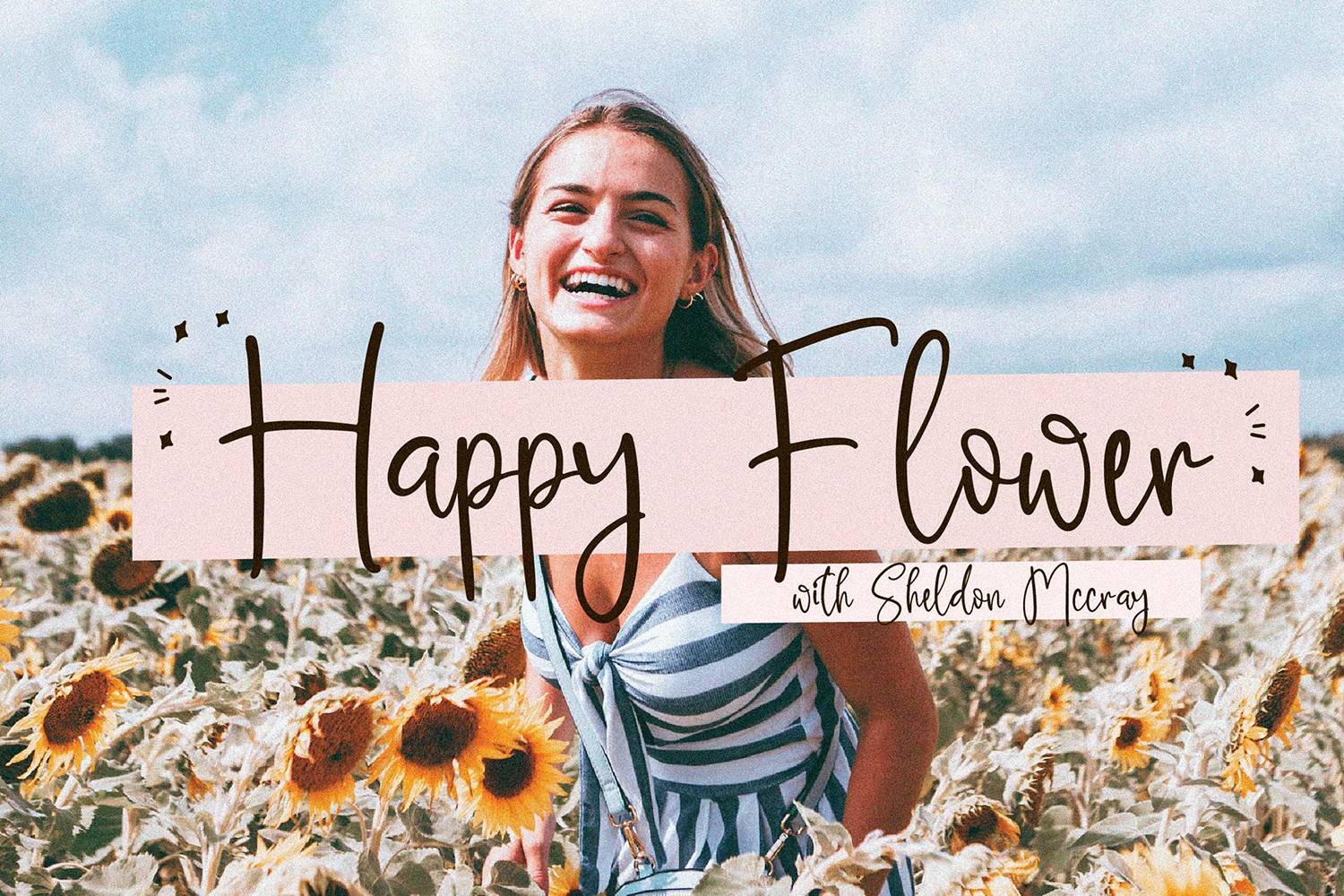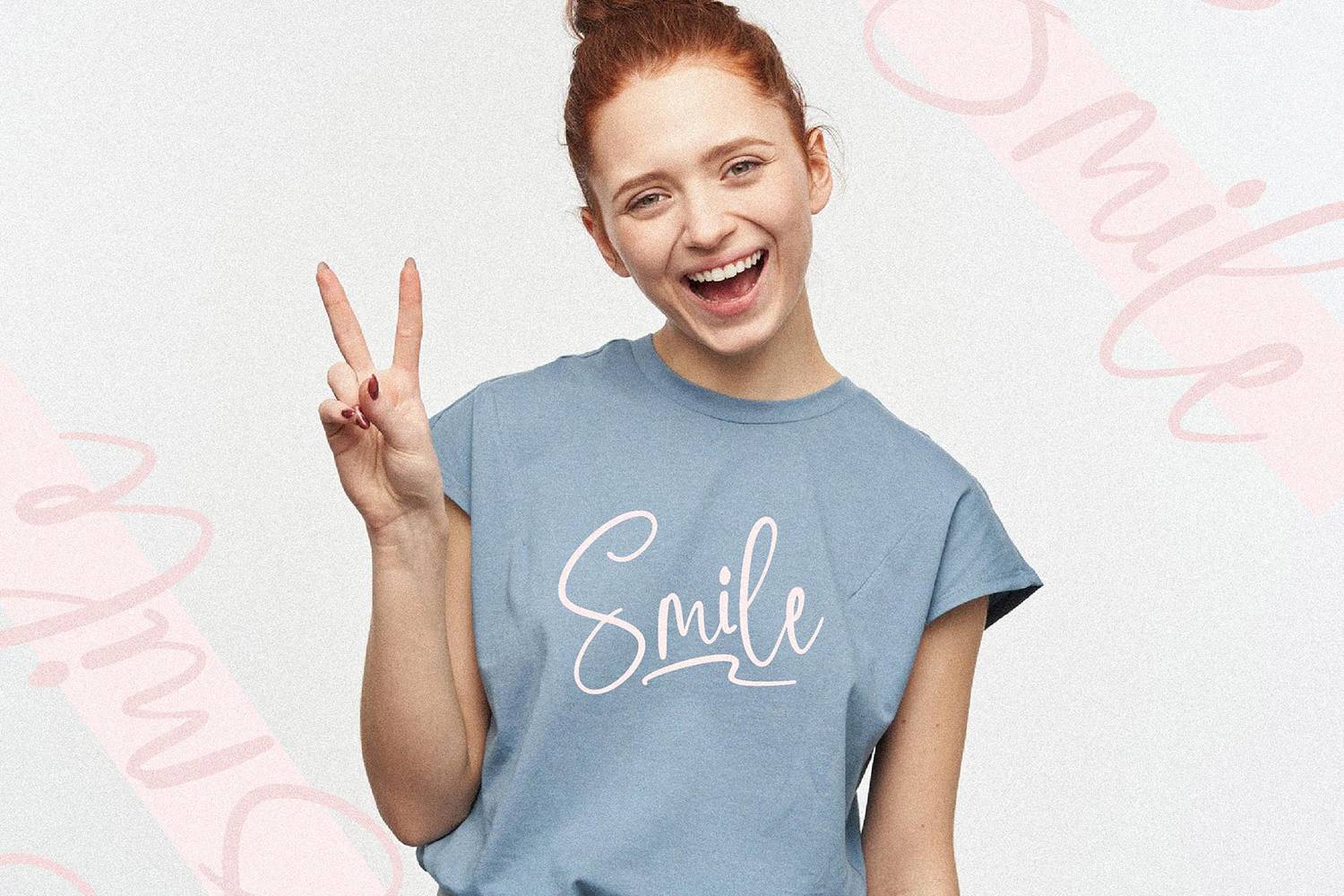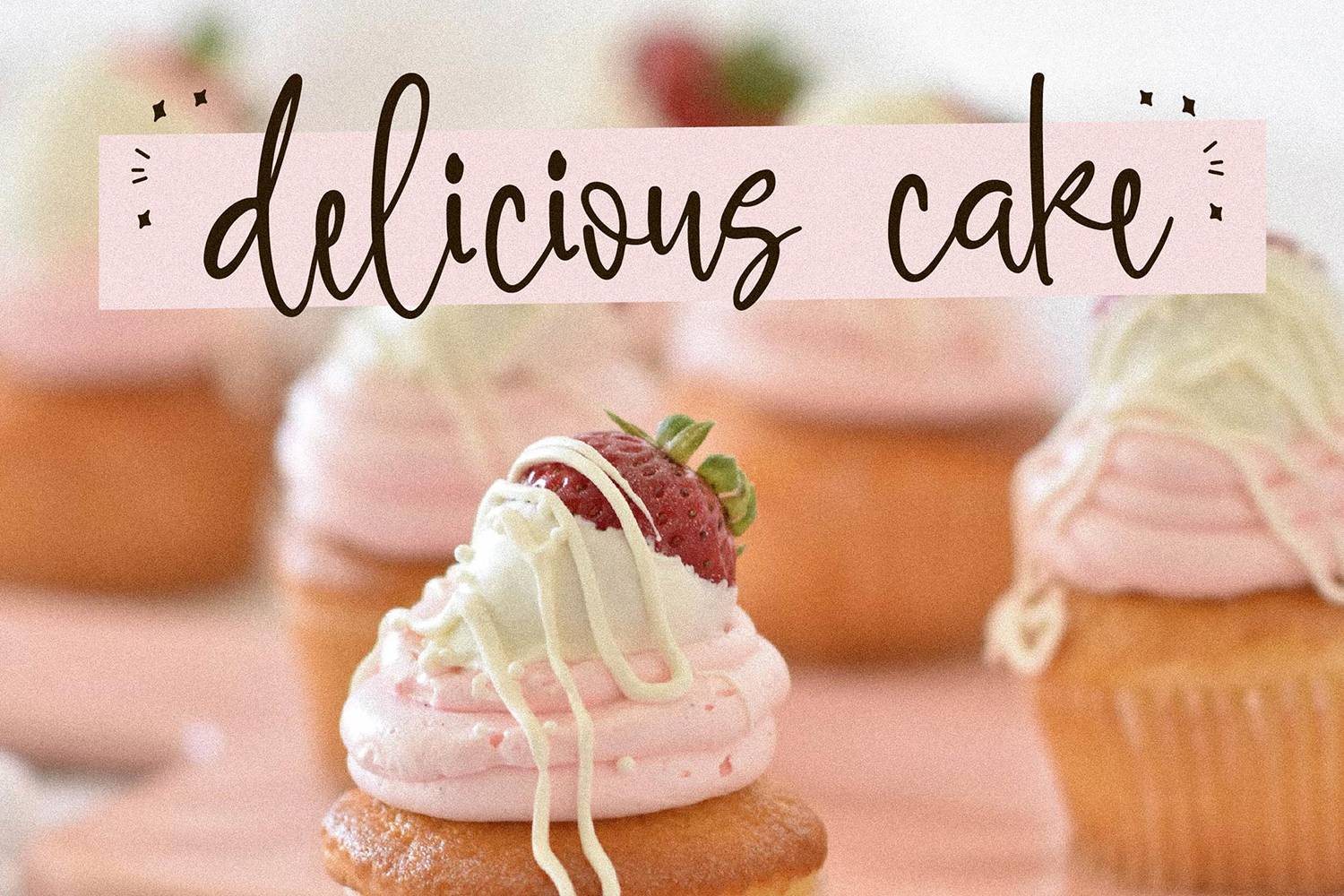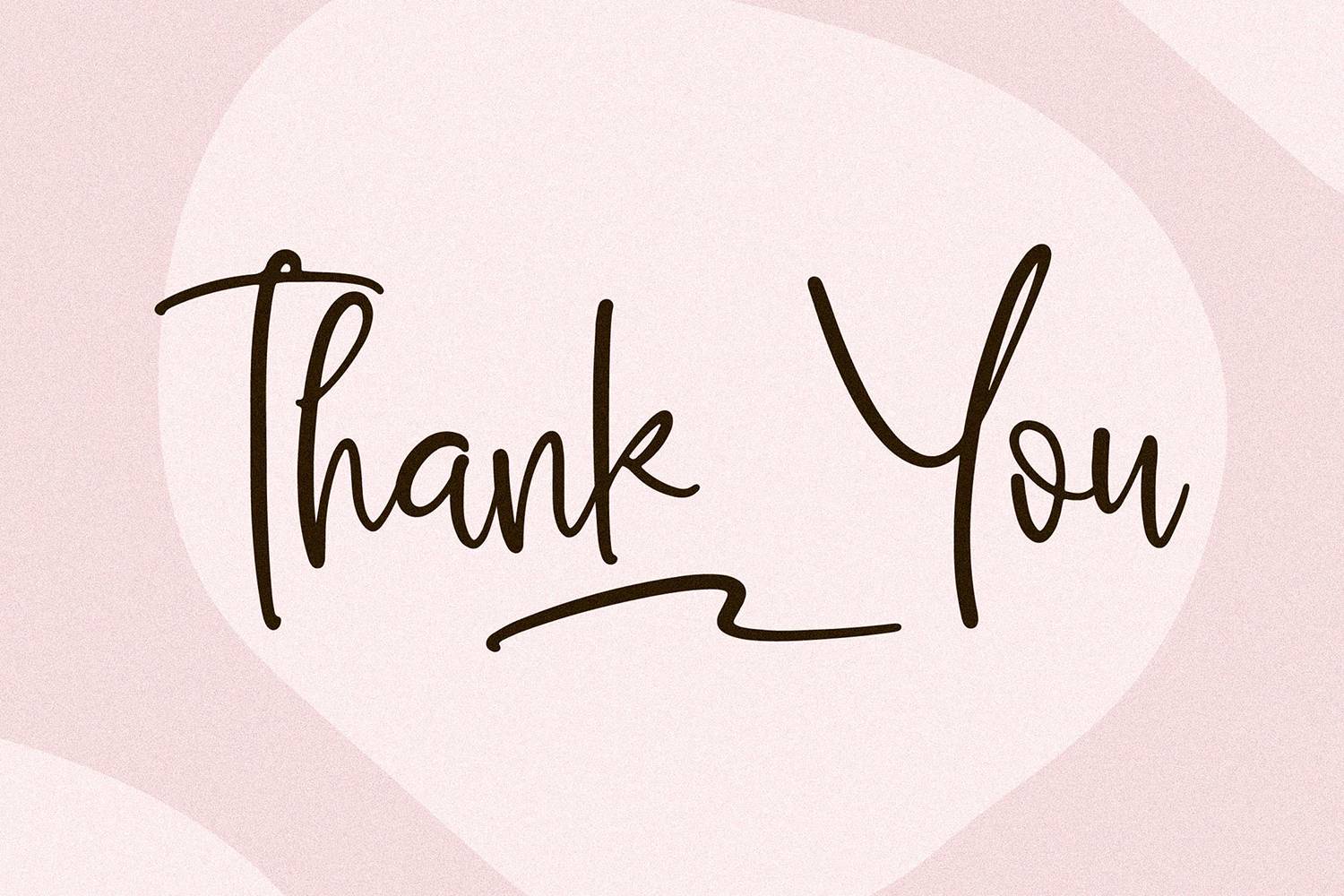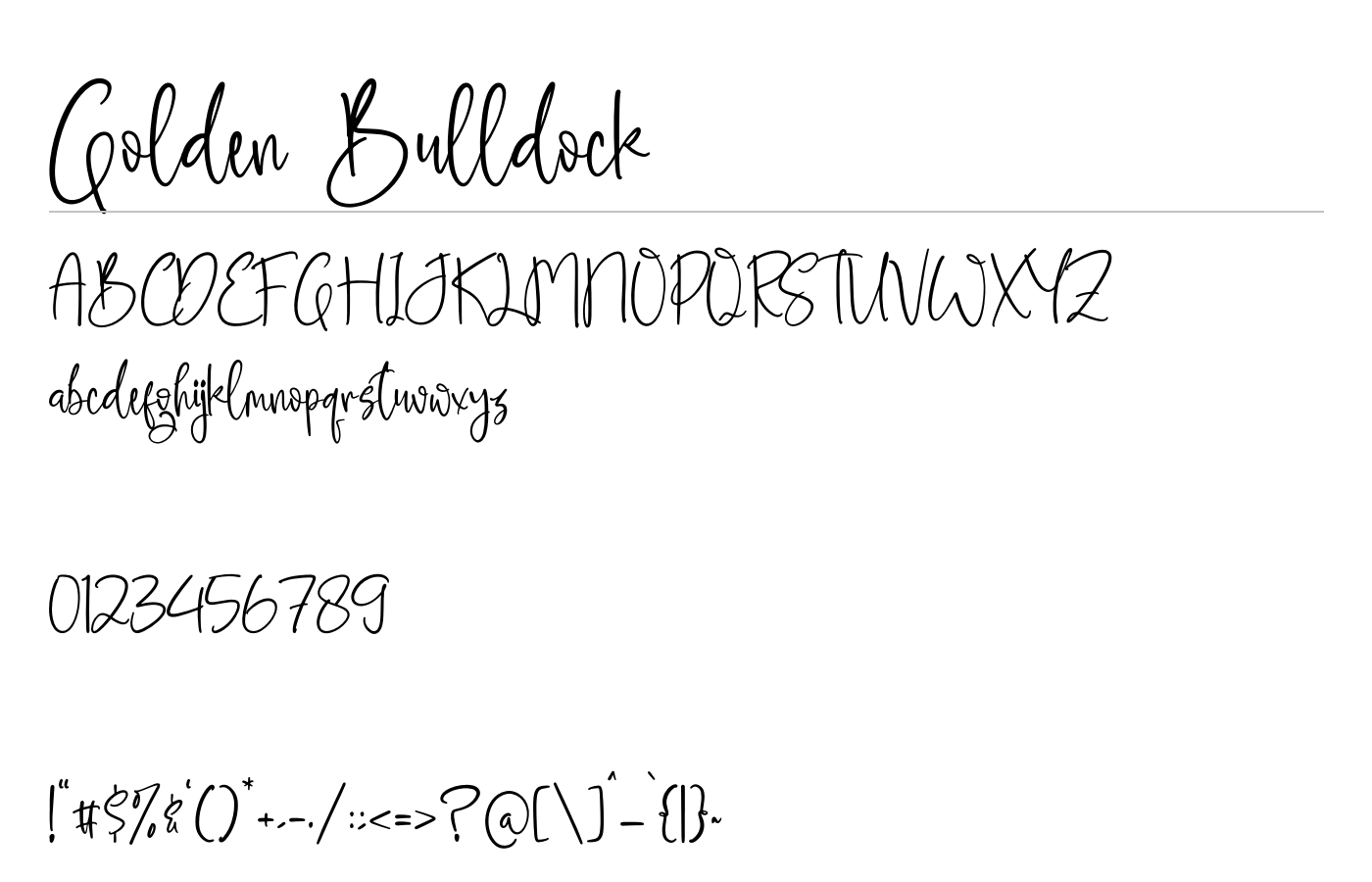
Golden Bulldock is a playful and elegant handwritten script font with a light, airy feel and smooth, flowing strokes. Its tall, narrow letterforms and whimsical curves lend a casual yet refined charm, making it ideal for creative projects like invitations, branding, and social media where a personal, artistic touch is desired. This font shines in places that benefit from a friendly, approachable style with a hint of sophistication.
Golden Bulldock Font
About Golden Bulldock Font